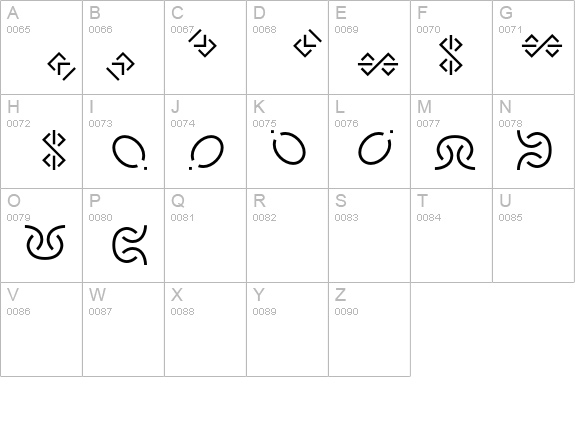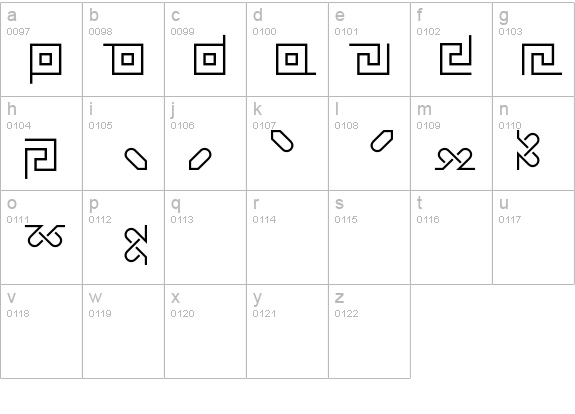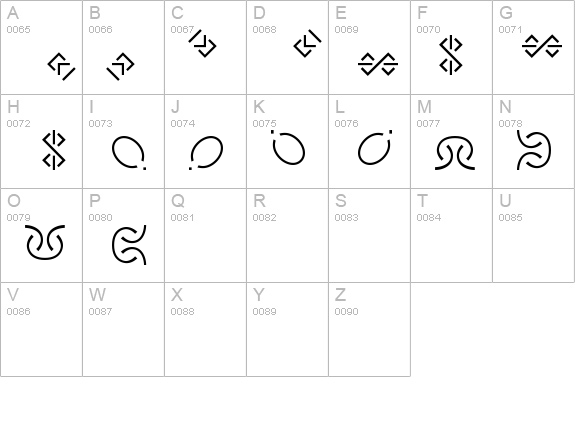
Rusticana Borders Font Details
Rusticana Borders font is a stunning and versatile typeface that adds a touch of rustic charm to any design project. With its intricate borders and ornate details, this font is perfect for creating eye-catching headlines, invitations, and more. The free-spirited nature of Rusticana Borders font makes it a standout choice for anyone looking to add a unique and artistic flair to their work. And the best part? Rusticana Borders font is freely available to download at FontsMarket.com. This means you can start using this beautiful font in your projects right away, without any cost or hassle. Don't miss out on the opportunity to enhance your designs with the captivating beauty of Rusticana Borders font - download it today and let your creativity shine!